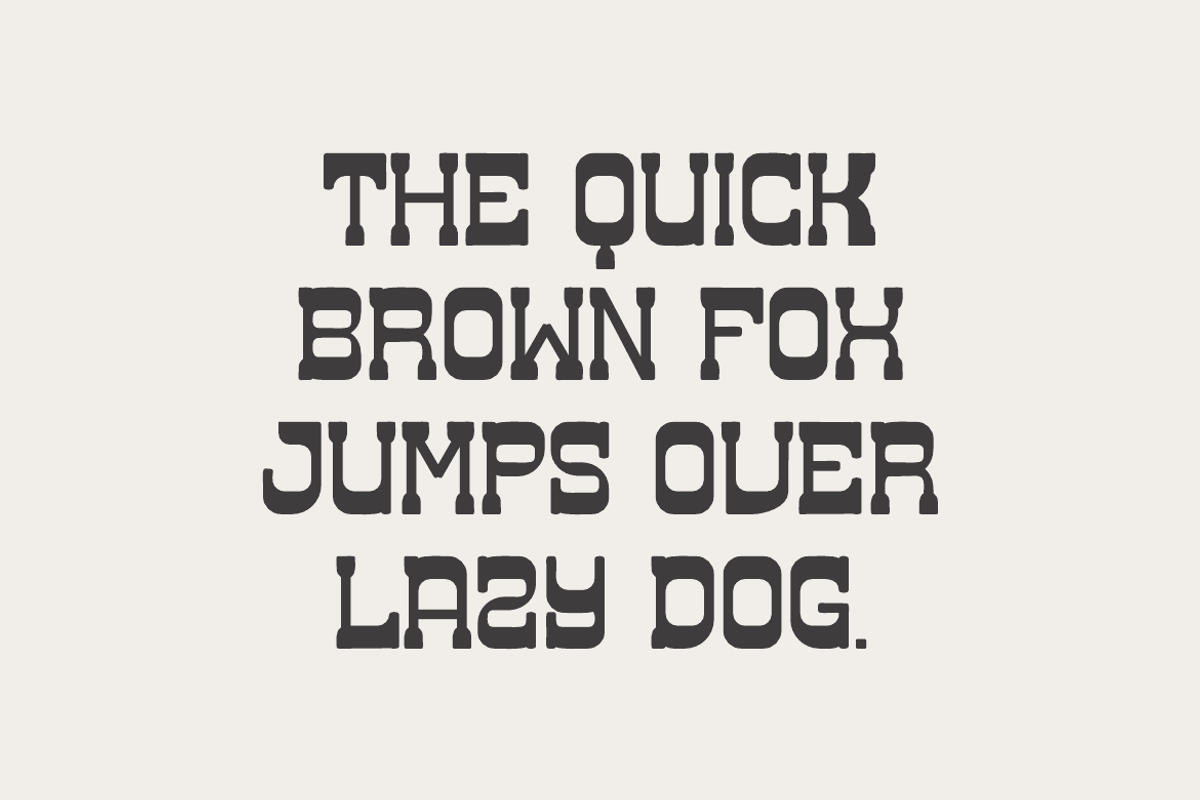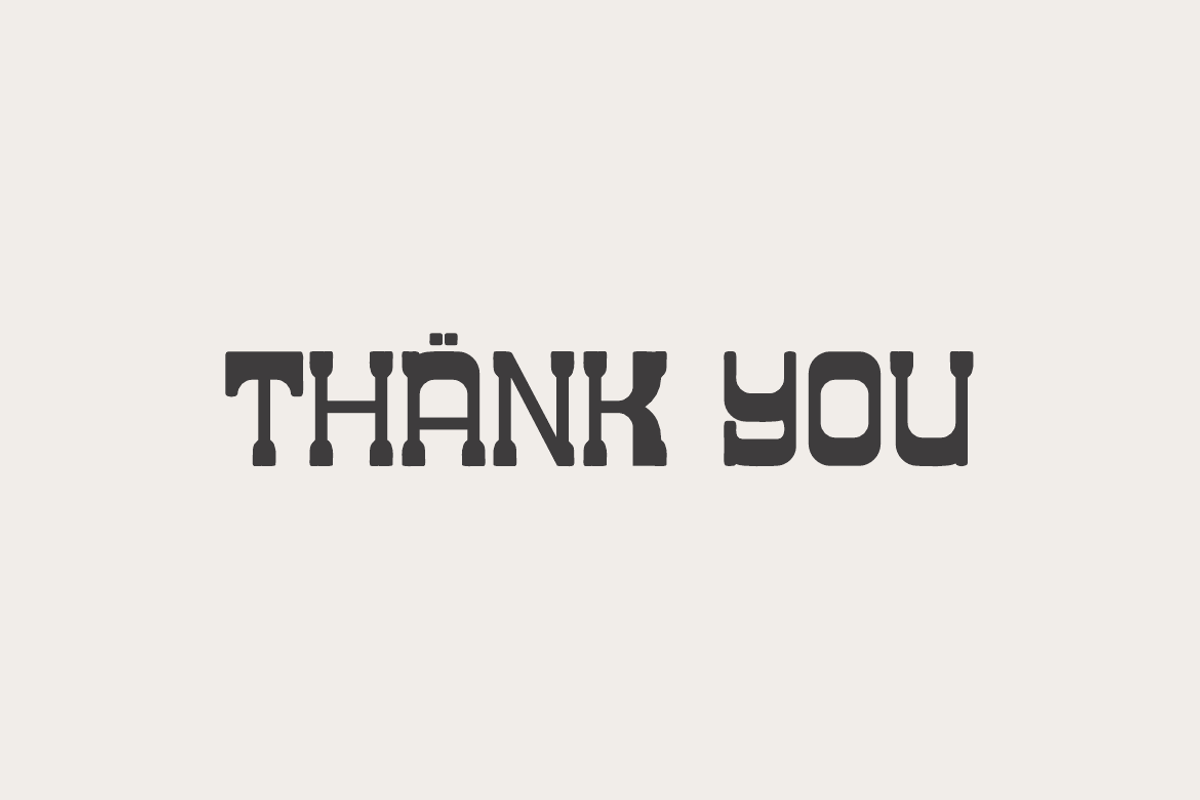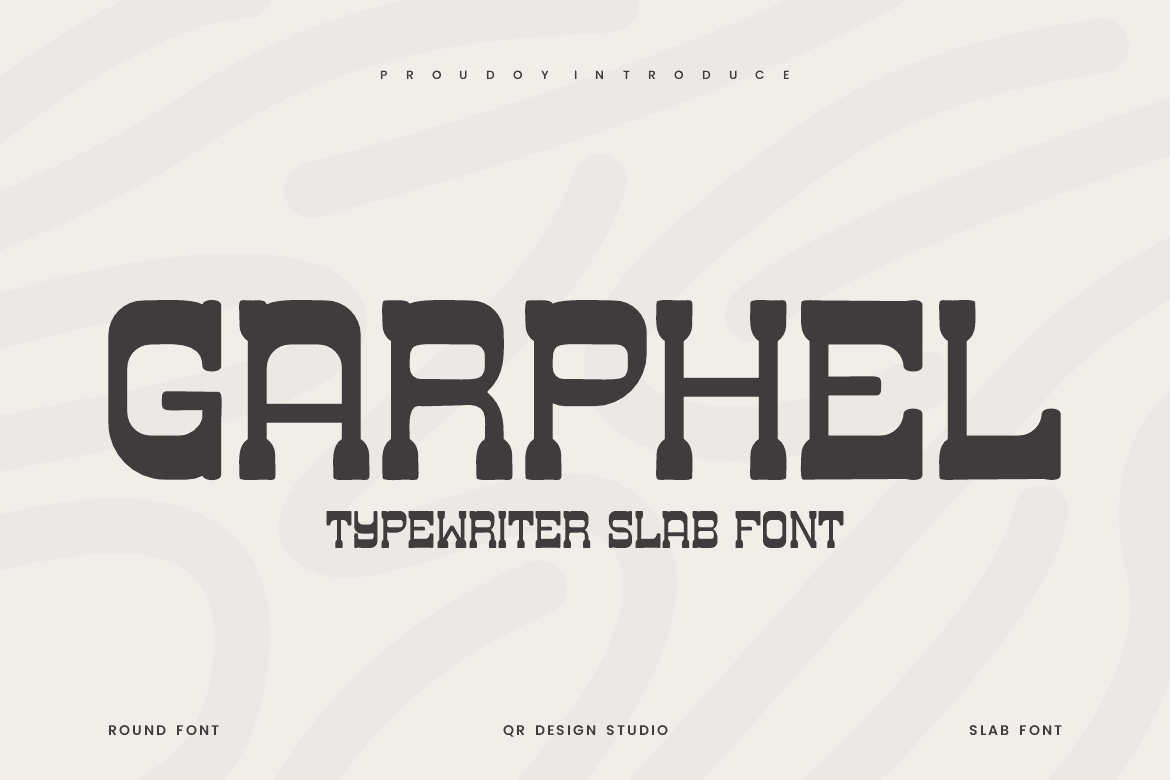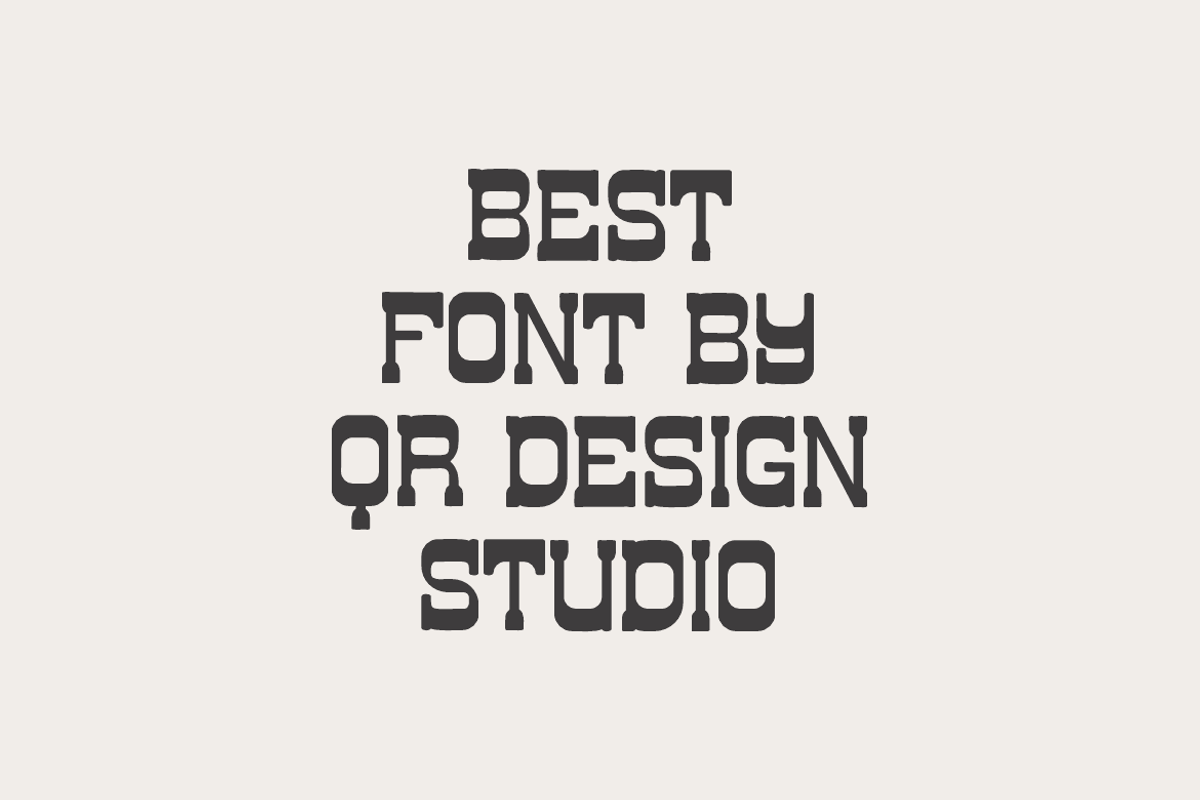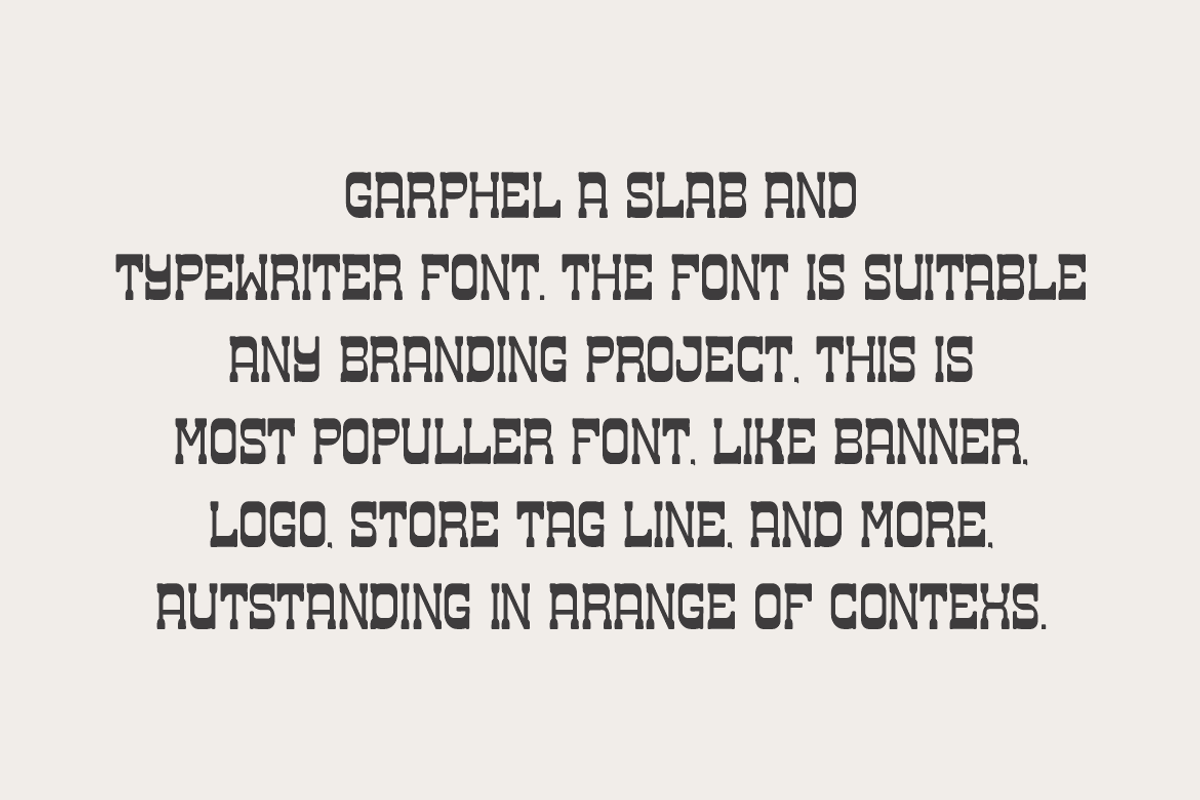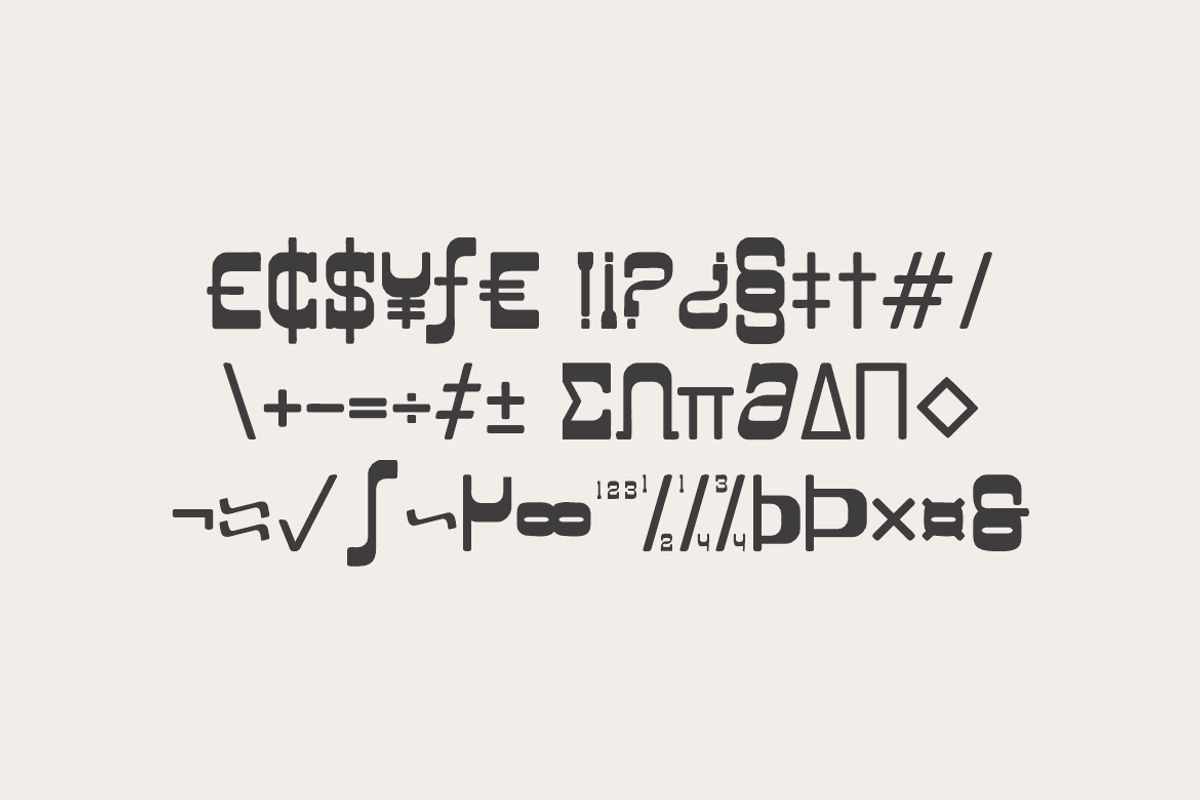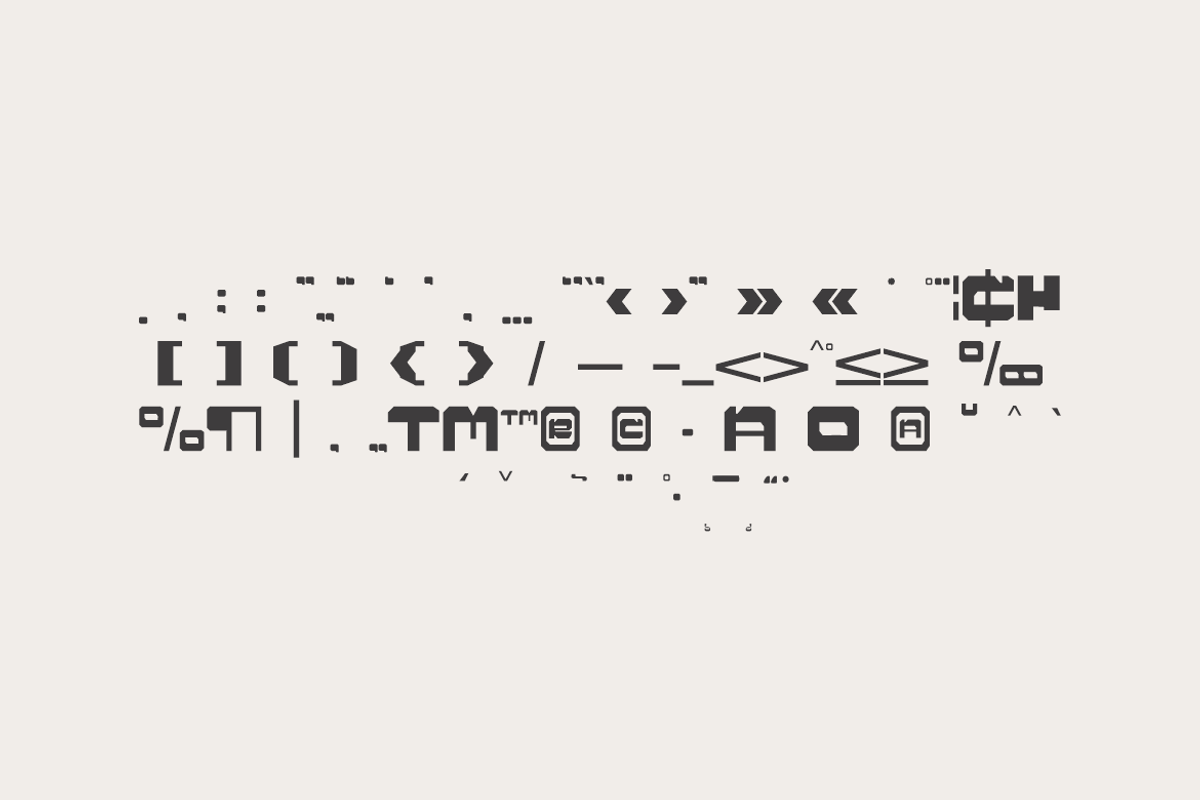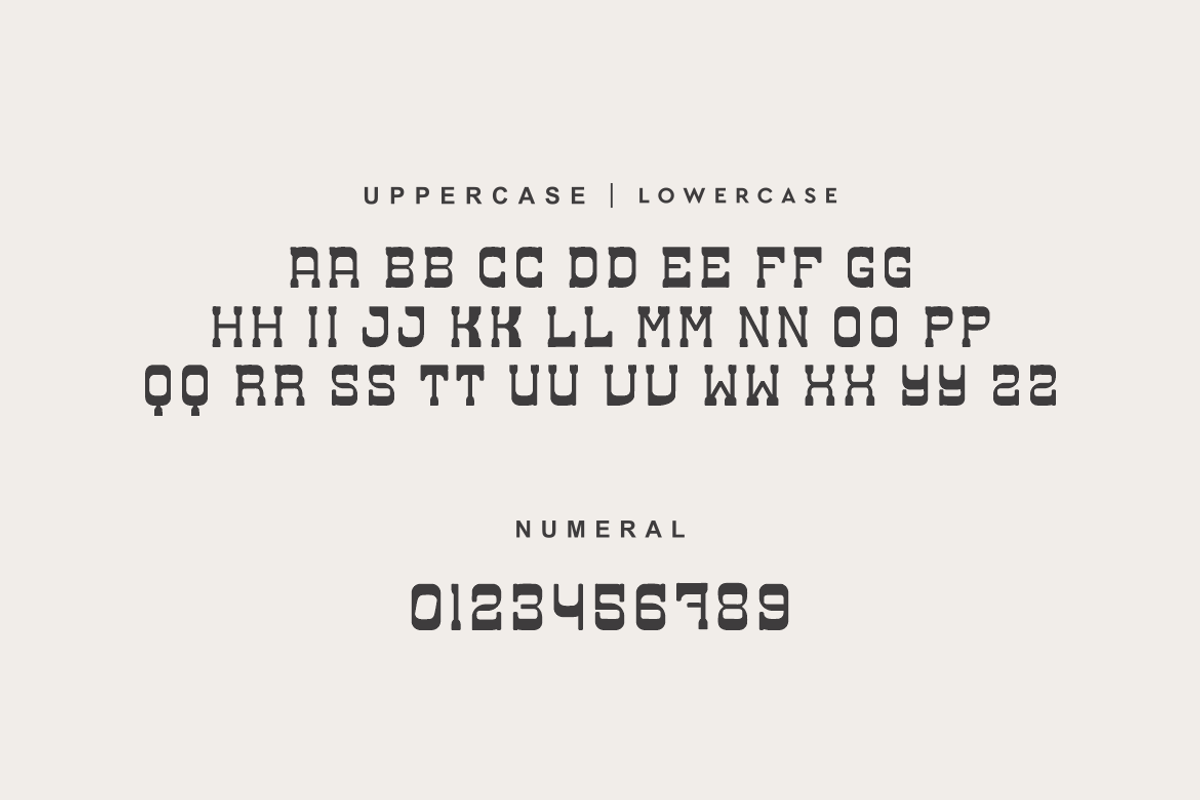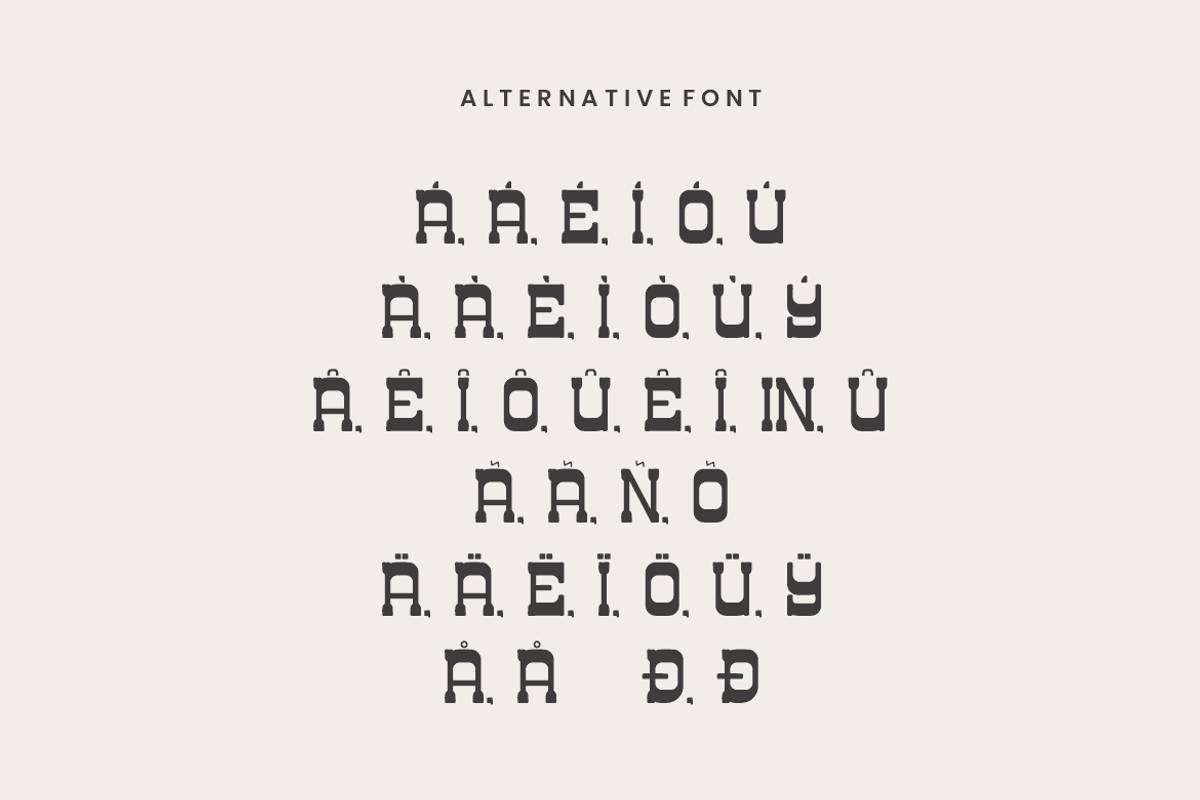
Garphel - Typewriter Slab Font
Garphel Font is a serif and authentic display font. The font is suitable for any branding project like poster, logo, and many more. Outstanding in a wide range of contexts.